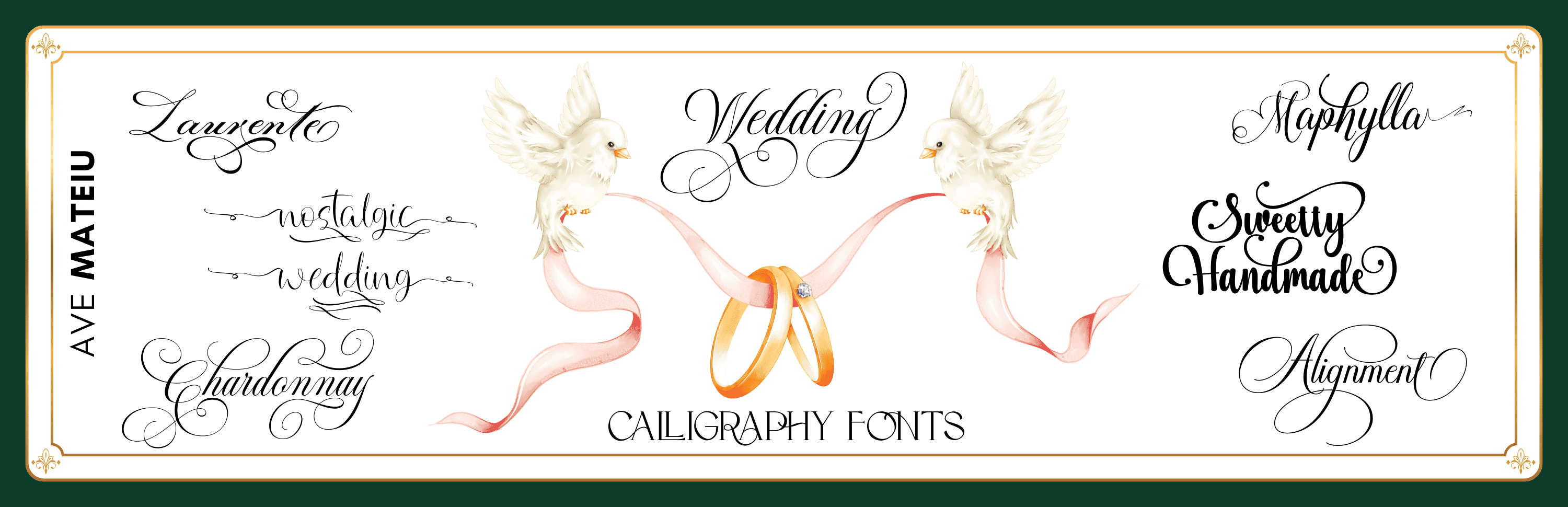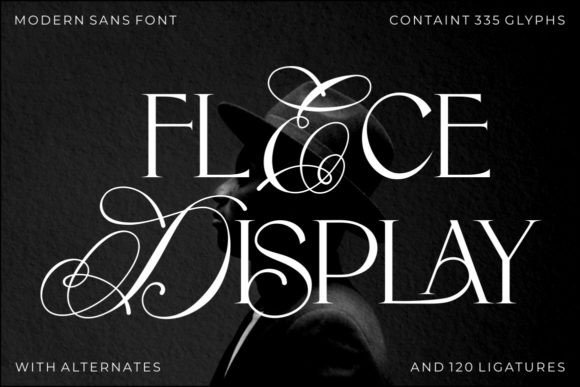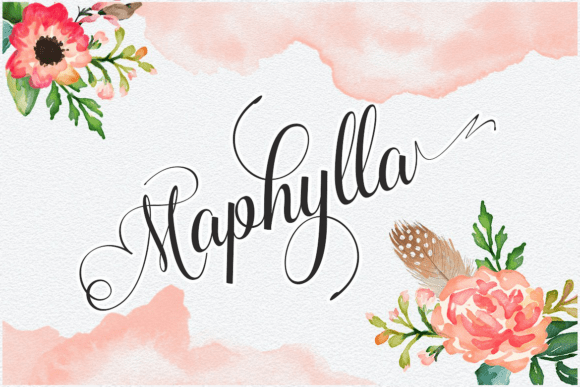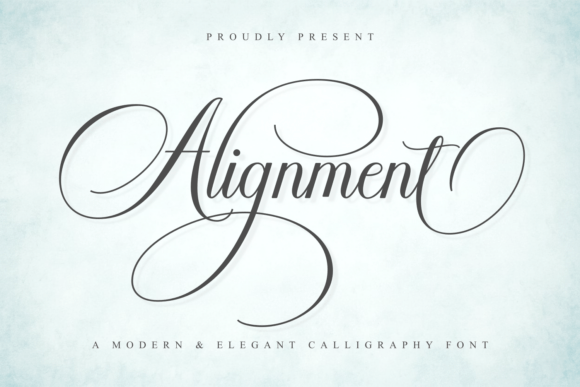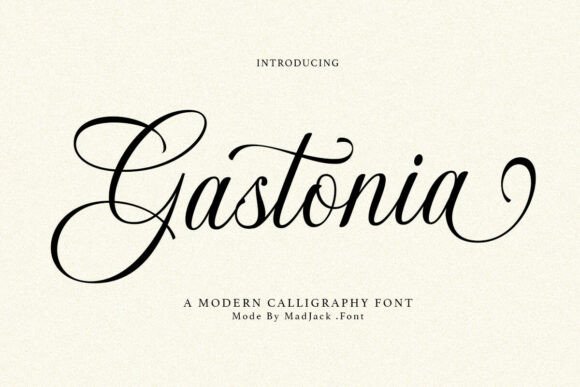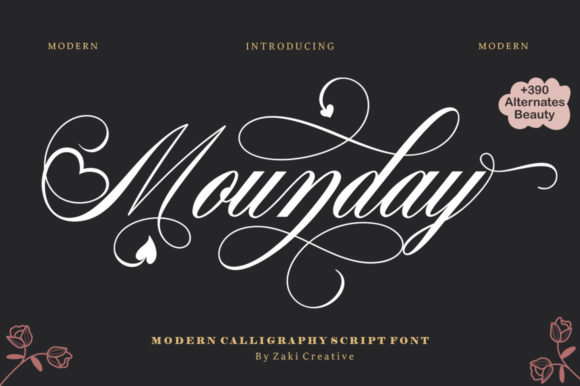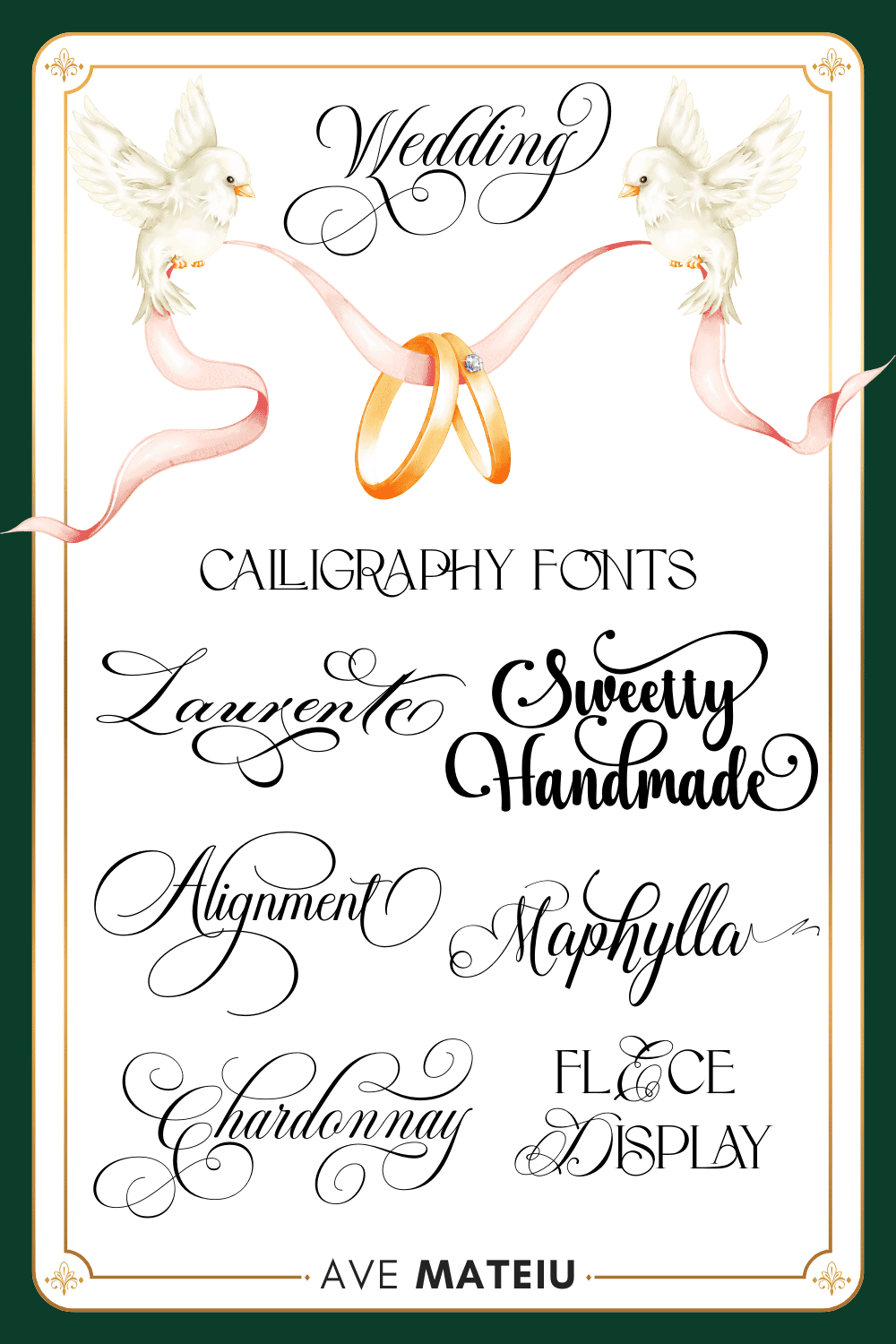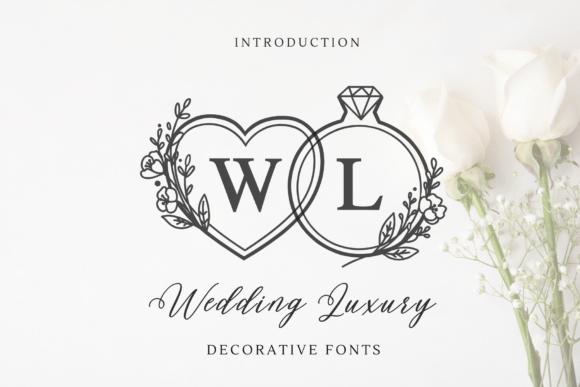
10 Stunning Calligraphy Fonts for Wedding Invitations And More
If you’re searching for wedding calligraphy fonts, you are not just browsing for decoration.
You’re making a design decision that will signal quality immediately.
Designers, brides, Etsy sellers, and Canva users all face the same problems:
Too many fonts.
No filter.
No clear standard for what actually works.
Hours of scrolling or guesswork.
As a result, wedding invitations are not neutral design pieces. In fact, they set expectations before a single word is read. One careless font choice can make a polished layout feel generic or underwhelming.
Meanwhile, the current trend favors refined, controlled calligraphy. Hand-lettered styles feel personal, yet never chaotic. Choosing the right wedding calligraphy fonts matters.
Every font here is available on Creative Fabrica, curated to remove bad options and save you time.
What Makes a Great Wedding Calligraphy Font?
• Hand-lettered structure that looks intentional, not ornamental.
• Controlled stroke contrast that prints cleanly across formats.
• Balanced curves that complement modern serif or minimalist sans fonts.
• Readability under real conditions like low light and textured paper.
• Clear readability at small sizes for dates, locations, and details.
• Clear distinction between decorative scripts and functional text fonts.
• Performs consistently in print, not just on screen.
• Flexible enough for calligraphy wedding invitations and matching stationery.
• Alignment with current wedding invitation fonts that favor restraint over excess.
• Compatibility with digital tools, including Canva wedding fonts workflows.
• Clear commercial use terms that protect designers and sellers.
Good calligraphy does not announce itself.
It holds everything together.
The best wedding calligraphy fonts are:
1/10
Chardonnay
Chardonnay is a royal calligraphy font that balances rich ornamentation with excellent readability.
Its controlled stroke contrast makes it especially effective on wedding invitations printed on textured paper, creating a refined, professional handwritten look.
It pairs beautifully with minimalist serif fonts, such as Crimson Pro, which is available for free on Canva.
2/10
Laurente
Laurente is a pièce de résistance for designs that aim to communicate refined elegance.
With its dramatic yet perfectly balanced curls, this wedding script font transforms a simple invitation into a true style statement. It feels like a deliberate choice that elevates the overall quality of the project.
For a refined contrast, pair it with a clean, airy serif font for body text and details.
3/10
Flece Display – Font Duo (Calligraphy & Sans Serif)
Flece Display is not a traditional calligraphy font, but it clearly signals quality and refinement.
Designed as a wedding font duo, it features two distinct styles, calligraphy and sans serif, creating a refined balance between expressive lettering and clean typography.
This versatility makes Flece Display an excellent choice for modern wedding stationery, particularly for designs that aim to feel both elegant and contemporary.
4/10
Sweetty Handmade
Sweetty Handmade brings a touch of hand-lettered authenticity that transforms any invitation into a warm and welcoming experience.
With its rounded curls and fluid letterforms, it is ideal for events that celebrate simplicity and genuine joy, while maintaining a high standard of professional design.
Its playful character pairs beautifully with a classic serif font, creating a balanced and visually appealing composition.
5/10
Maphylla
Maphylla is a font of refined elegance, featuring thin, flowing letterforms that recall classic pen-based calligraphy.
It is ideal for designs that require an airy, sophisticated look, making it perfect for compositions with botanical or watercolor elements.
Pair it with a delicate sans serif font to maintain a clean, modern aesthetic and balanced typography.
6/10
Nostalgic Wedding
Nostalgic Wedding is an elegant wedding calligraphy font that embodies fine artistry. Its delicate lines and airy rhythm bring a sense of romance and subtle charm, perfect for boho-chic or garden wedding invitations.